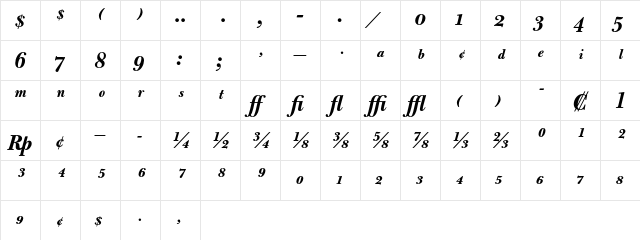
Bulmer MT Bold Italic Expert Font Preview
Design Context for Bulmer MT Typeface
Bulmer MT takes a measured approach to typography — its balanced proportions and neutral character make it a reliable workhorse for both digital and print work. Its italic angle brings a sense of urgency and motion to the letterforms. The heavy weight commands attention and anchors typographic hierarchies.
Pro Tip: Try Bulmer MT for annotation and caption copy alongside an upright companion — the contrast in angle creates a dynamic but ordered typographic system.